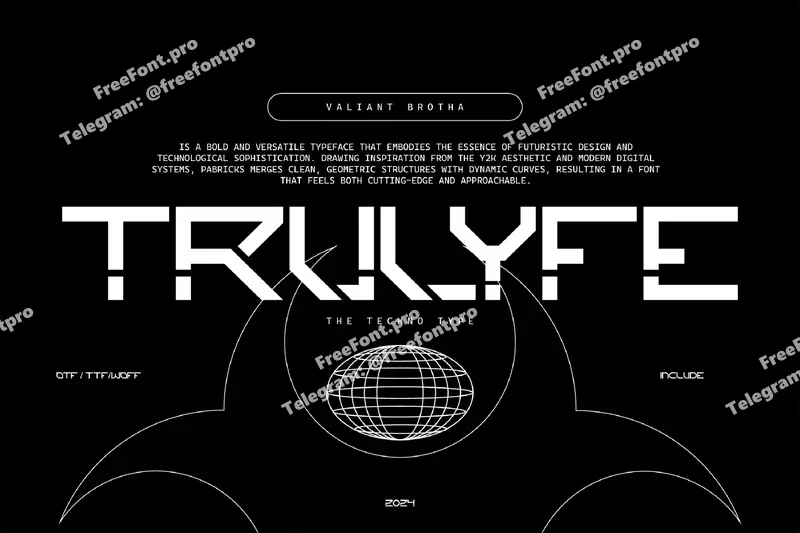
TruLyfe – Futuristic Font
TruLyfe is a bold and versatile typeface that embodies the essence of futuristic design and technological sophistication. Drawing inspiration from the Y2K aesthetic and modern digital systems, Pabricks merges clean, geometric structures with dynamic curves, resulting in a font that feels both cutting-edge and approachable.